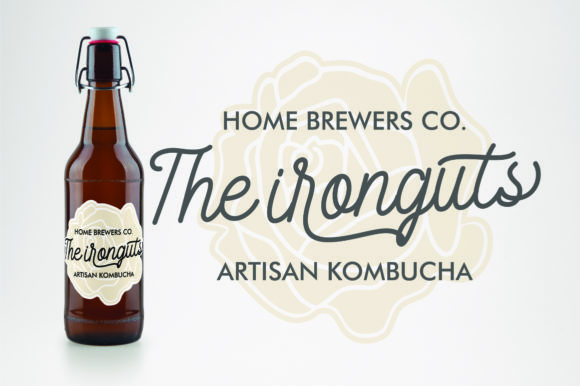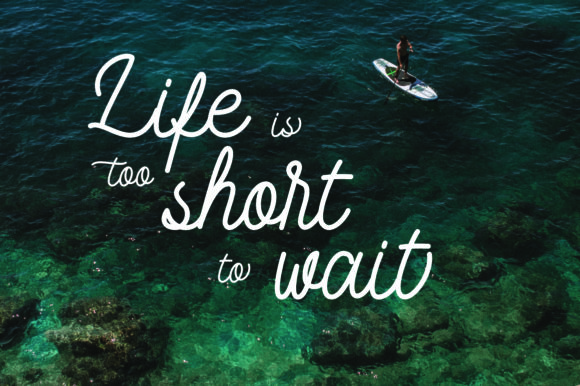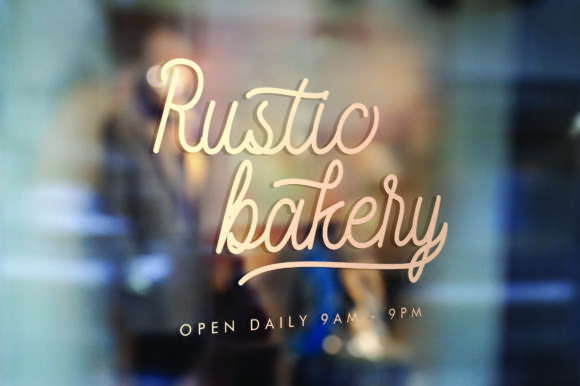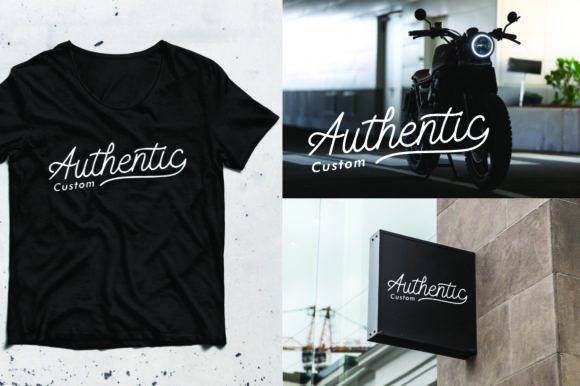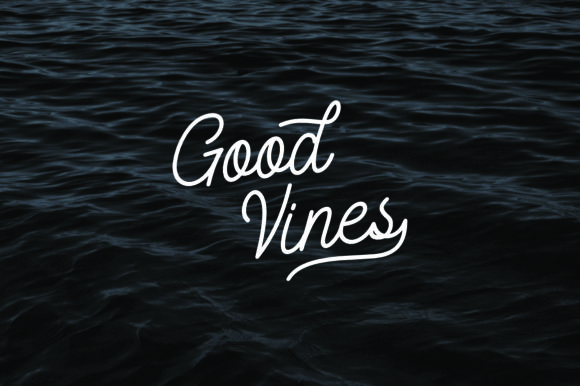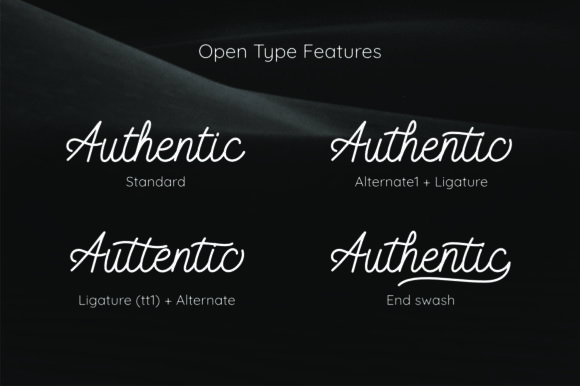
Glafitas Font: A Lovely and Delicate Retro-Styled Handwritten Font
In the world of typography, fonts play a crucial role in conveying the tone and personality of a design. For designers and crafters, finding the perfect font can be a daunting task, especially when it comes to creating unique and eye-catching projects. This is where Glafitas Font comes in – a lovely and delicate retro-styled handwritten font that can elevate any creation.
What is Glafitas Font?
Glafitas Font is a beautiful, handwritten font that exudes a sense of nostalgia and charm. Its retro style is reminiscent of classic typography from the past, yet it has a modern twist that makes it perfect for contemporary designs. The font’s delicate lines and subtle flair give it a feminine touch, making it ideal for projects that require a touch of elegance and sophistication.
Features of Glafitas Font
So, what makes Glafitas Font an incredibly valuable asset to your font library? Here are some of its key features:
- Retro Style: Glafitas Font has a unique retro style that sets it apart from other fonts. Its classic look is perfect for creating vintage-inspired designs, but it can also be used in modern designs to add a touch of nostalgia.
- Delicate Lines: The font’s delicate lines and subtle flair give it a feminine touch, making it ideal for projects that require a touch of elegance and sophistication.
- Handwritten Look: Glafitas Font has a handwritten look that gives it a personal and organic feel. This makes it perfect for creating designs that require a human touch.
- Versatility: Glafitas Font can be used for a wide range of projects, from branding and packaging to scrapbooking and journaling.
Uses of Glafitas Font
Glafitas Font is an incredibly versatile font that can be used for a wide range of projects. Here are some ideas to get you started:
- Branding and Packaging: Use Glafitas Font to create unique and eye-catching branding and packaging designs that stand out from the crowd.
- Scrapbooking and Journaling: Add a touch of elegance and sophistication to your scrapbooking and journaling projects with Glafitas Font.
- Wedding and Event Design: Use Glafitas Font to create beautiful wedding and event designs, including invitations, programs, and signage.
- Digital Design: Glafitas Font can be used for digital designs, including social media graphics, blog posts, and website headers.
Why Choose Glafitas Font?
So, why should you choose Glafitas Font for your design projects? Here are just a few reasons:
- Unique Style: Glafitas Font has a unique retro style that sets it apart from other fonts.
- Elegance and Sophistication: The font’s delicate lines and subtle flair give it an elegant and sophisticated feel.
- Versatility: Glafitas Font can be used for a wide range of projects, from branding and packaging to scrapbooking and journaling.
- Easy to Read: Despite its delicate lines, Glafitas Font is easy to read, making it perfect for body text and headlines.
In conclusion, Glafitas Font is a lovely and delicate retro-styled handwritten font that can elevate any creation. Its unique style, elegance, and sophistication make it perfect for a wide range of projects, from branding and packaging to scrapbooking and journaling. Whether you’re a designer or crafter, Glafitas Font is an incredibly valuable asset to your font library.
Here are some tips and tricks for using Glafitas Font in your design projects:
- Pair it with Other Fonts: Glafitas Font pairs well with other fonts, including sans-serif fonts and script fonts.
- Use it for Headlines and Body Text: Glafitas Font is easy to read, making it perfect for both headlines and body text.
- Experiment with Colors: Glafitas Font looks great in a variety of colors, from bold and bright to soft and pastel.
With Glafitas Font, the possibilities are endless. Whether you’re a designer or crafter, this lovely and delicate retro-styled handwritten font is sure to become a favorite in your font library.